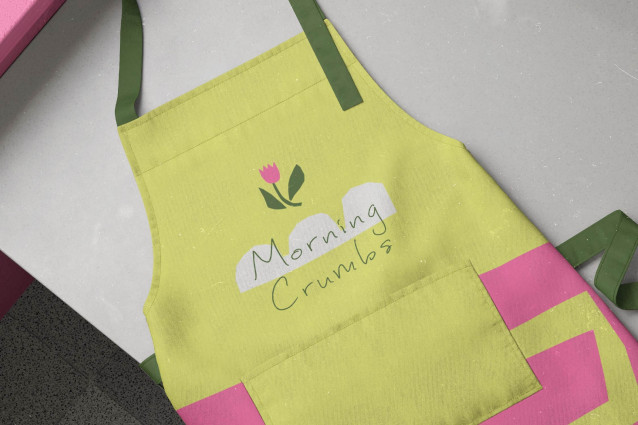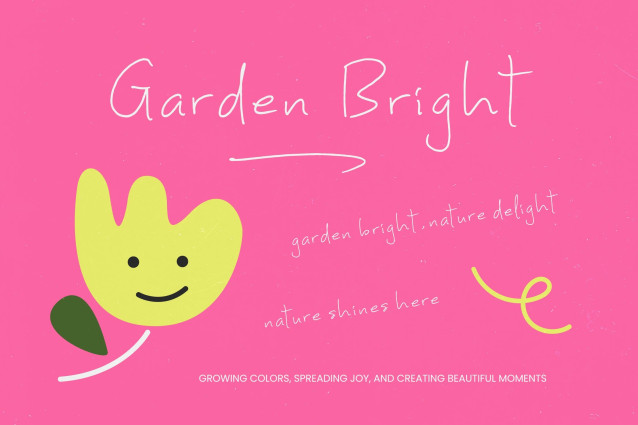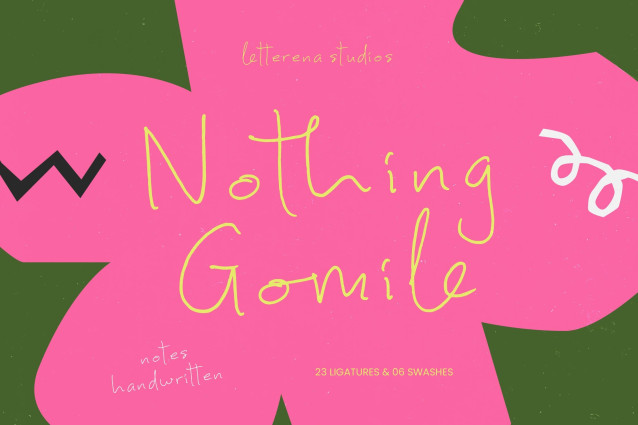
Nothing Gomile – Notes Handwritten Font
Discover the art of effortless charm with Nothing Gomile – Notes Handwritten, a typeface designed to bring a personal, organic touch to your creative projects. This refined script captures the essence of spontaneous handwriting with its delicate strokes and fluid motion, offering a sense of intimacy and authentic charm that standard digital fonts often lack. Its thin, monolinear aesthetic ensures a clean and modern appearance while maintaining a warm, approachable personality that resonates with today’s design trends.
Elevate your compositions using the extensive features packed into Nothing Gomile – Notes Handwritten. Boasting 23 custom ligatures and 06 expressive swashes, this font allows for unparalleled creative flexibility and a truly bespoke feel. The seamless connection between characters mimics natural ink flow, making it an essential tool for designers who prioritize visual storytelling and unique character. This attention to detail ensures that every word looks hand-crafted and professionally curated for maximum impact.